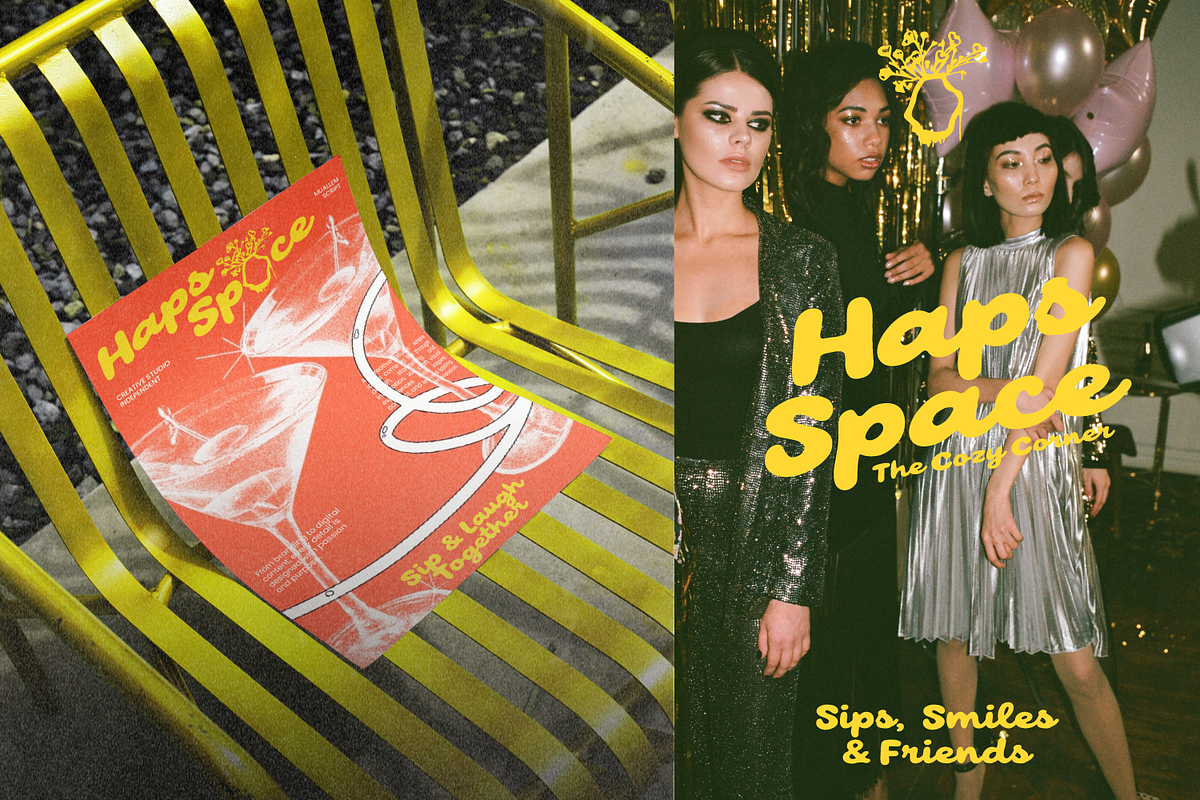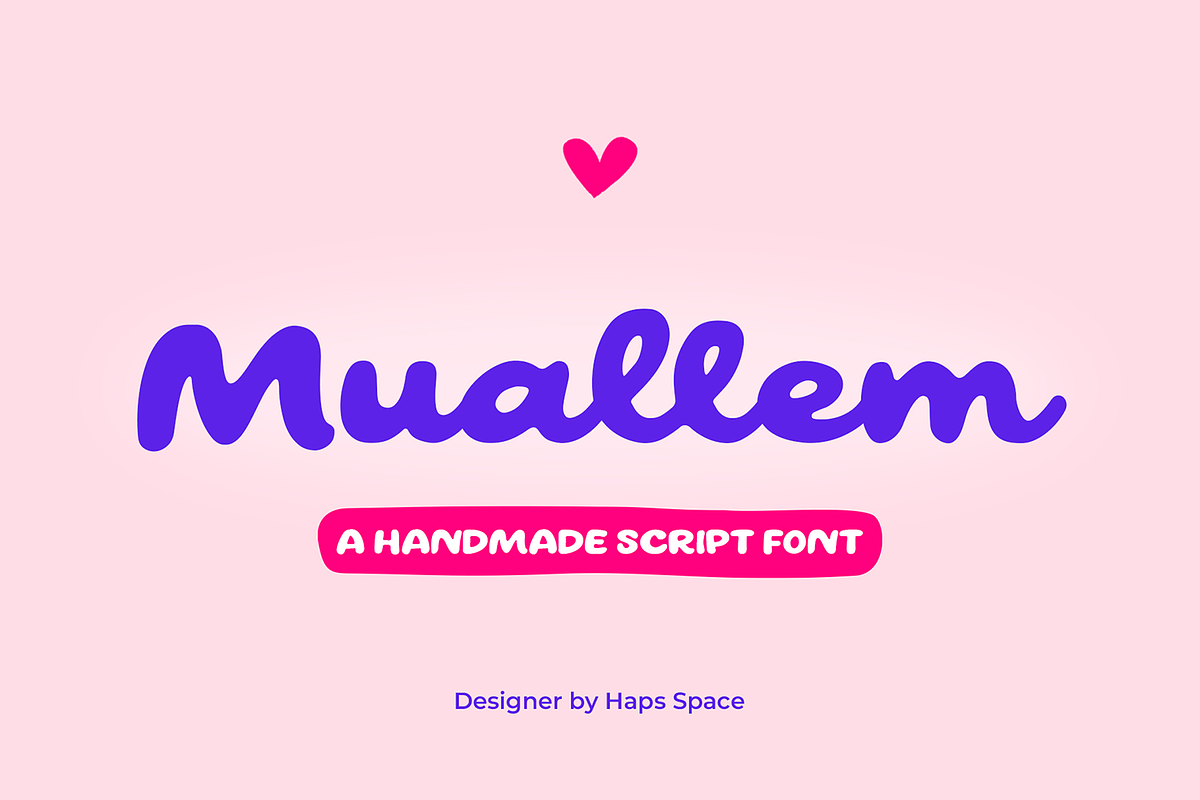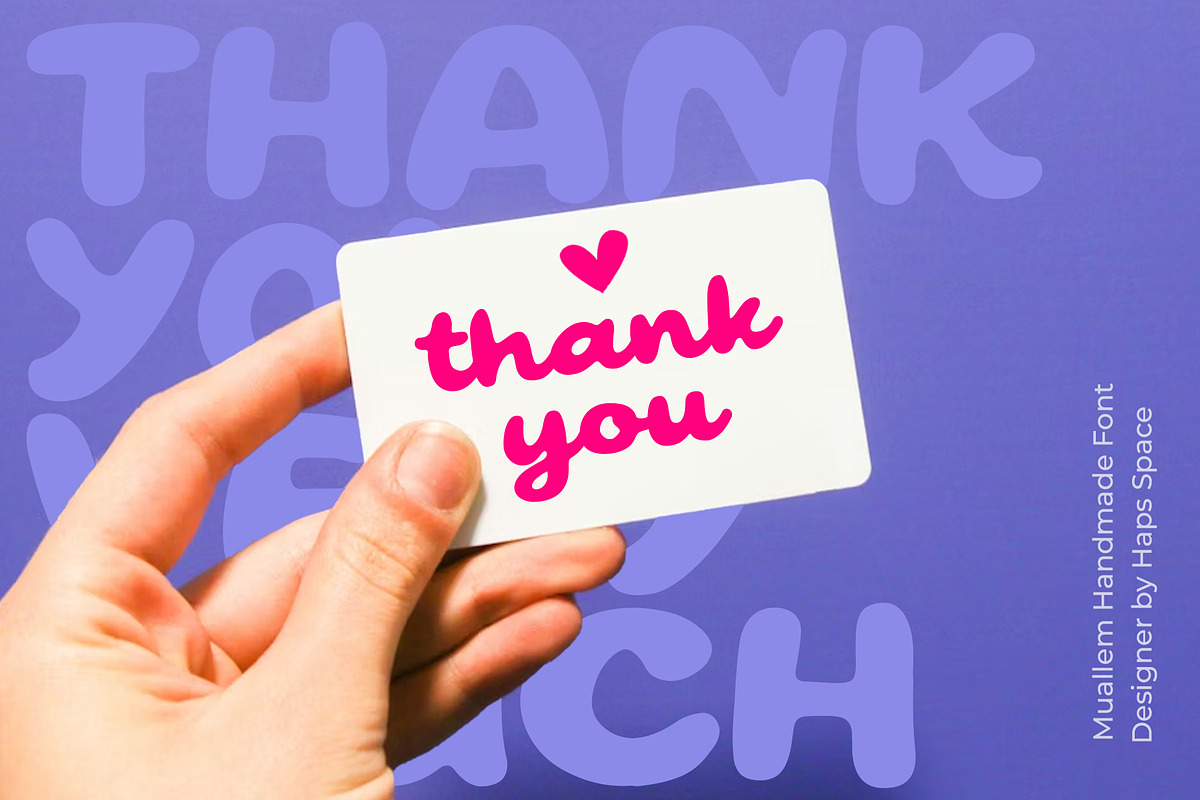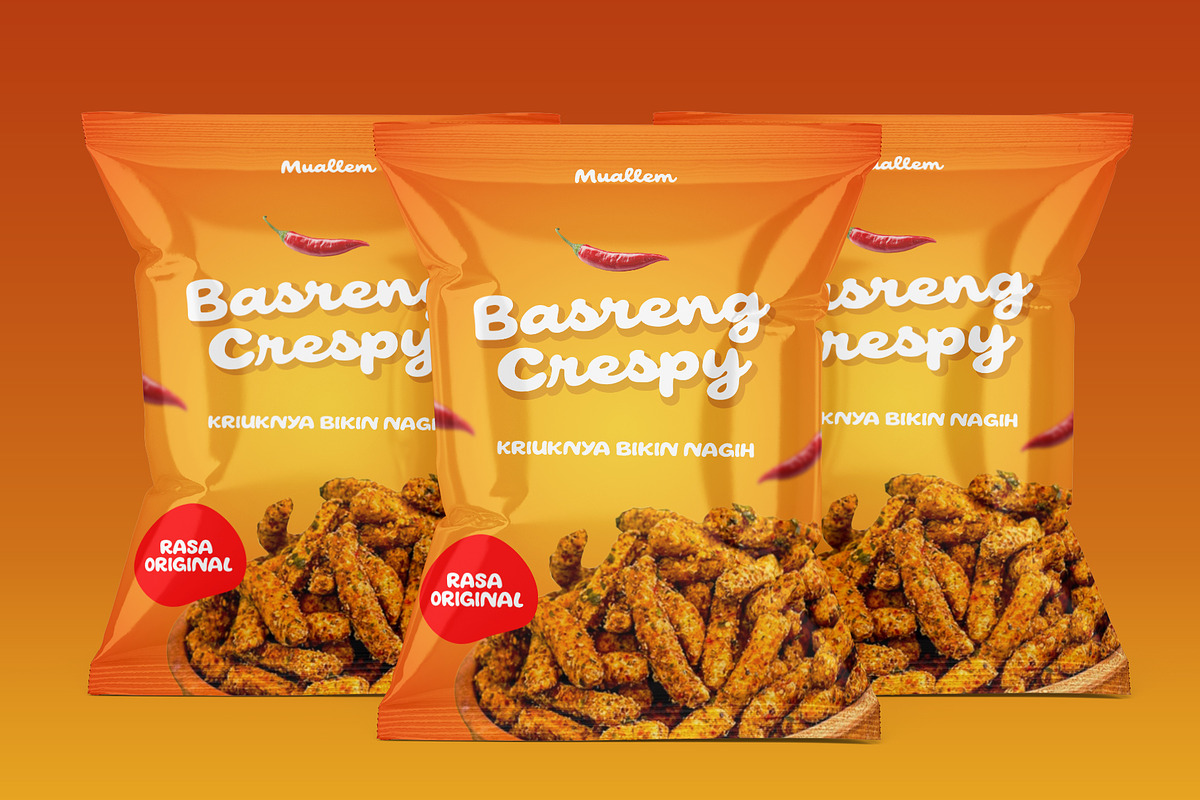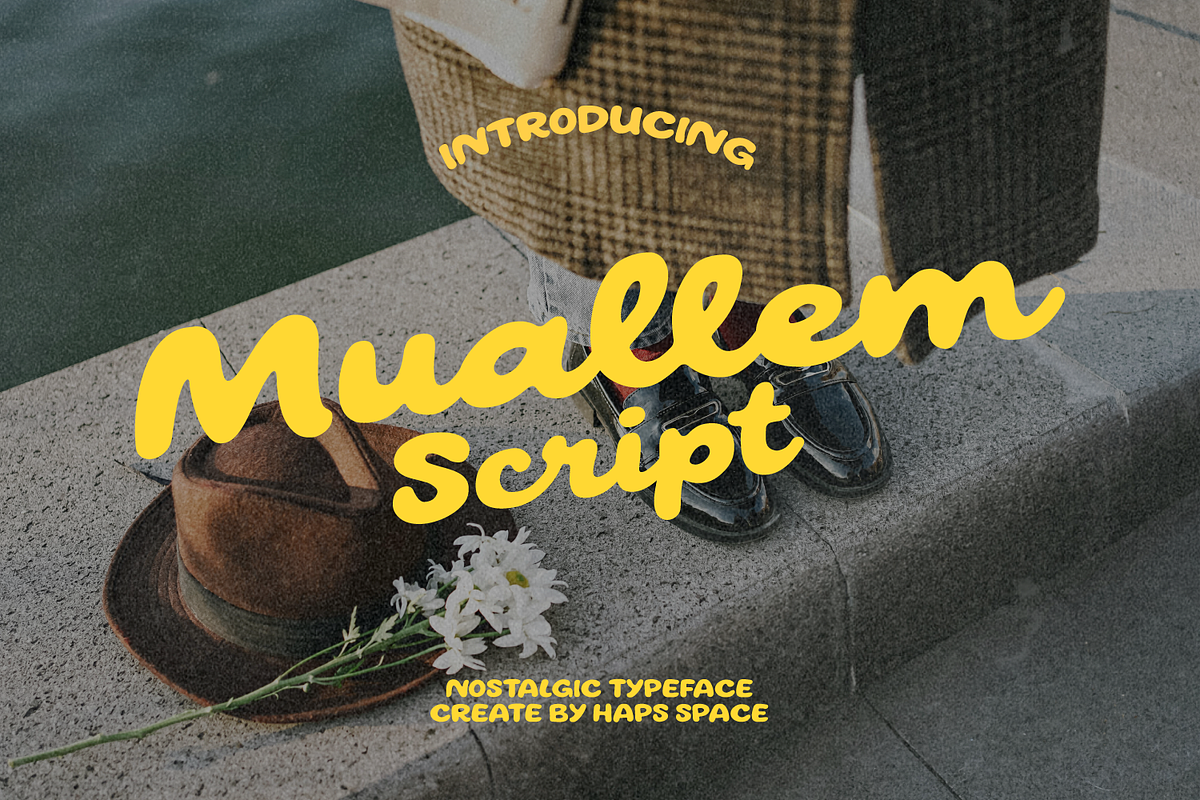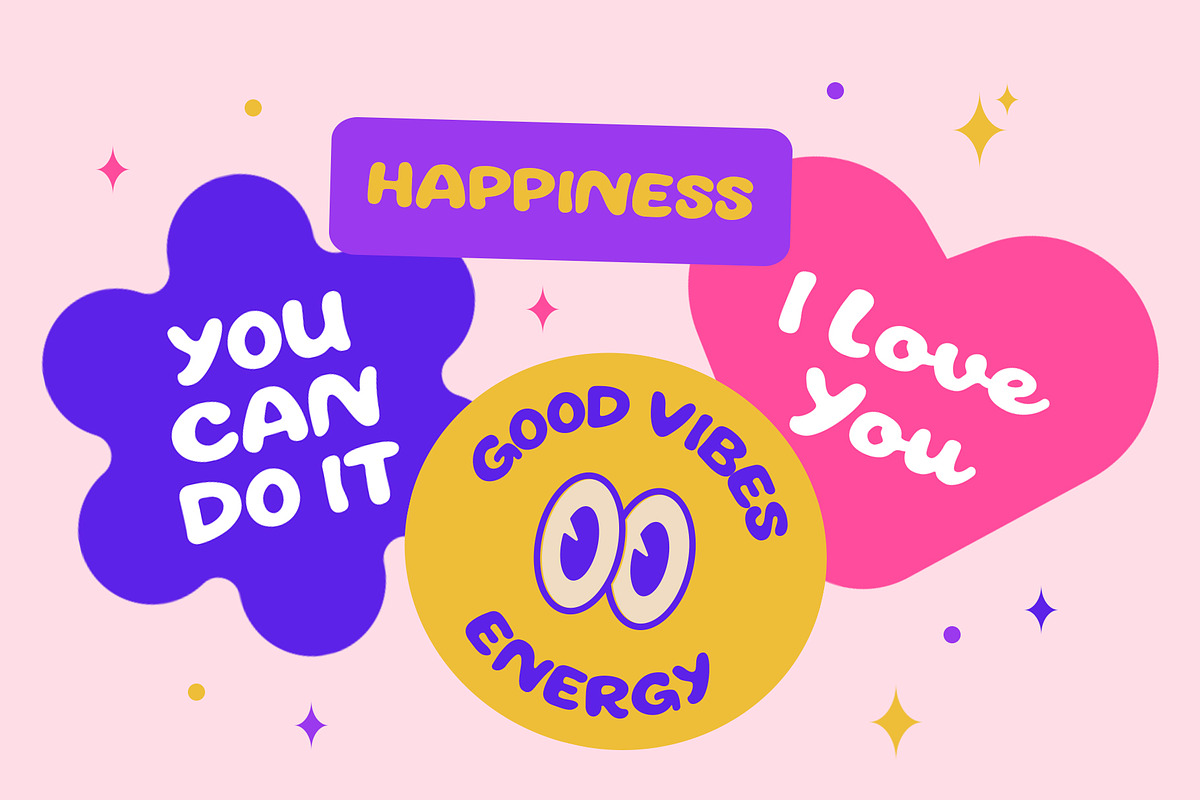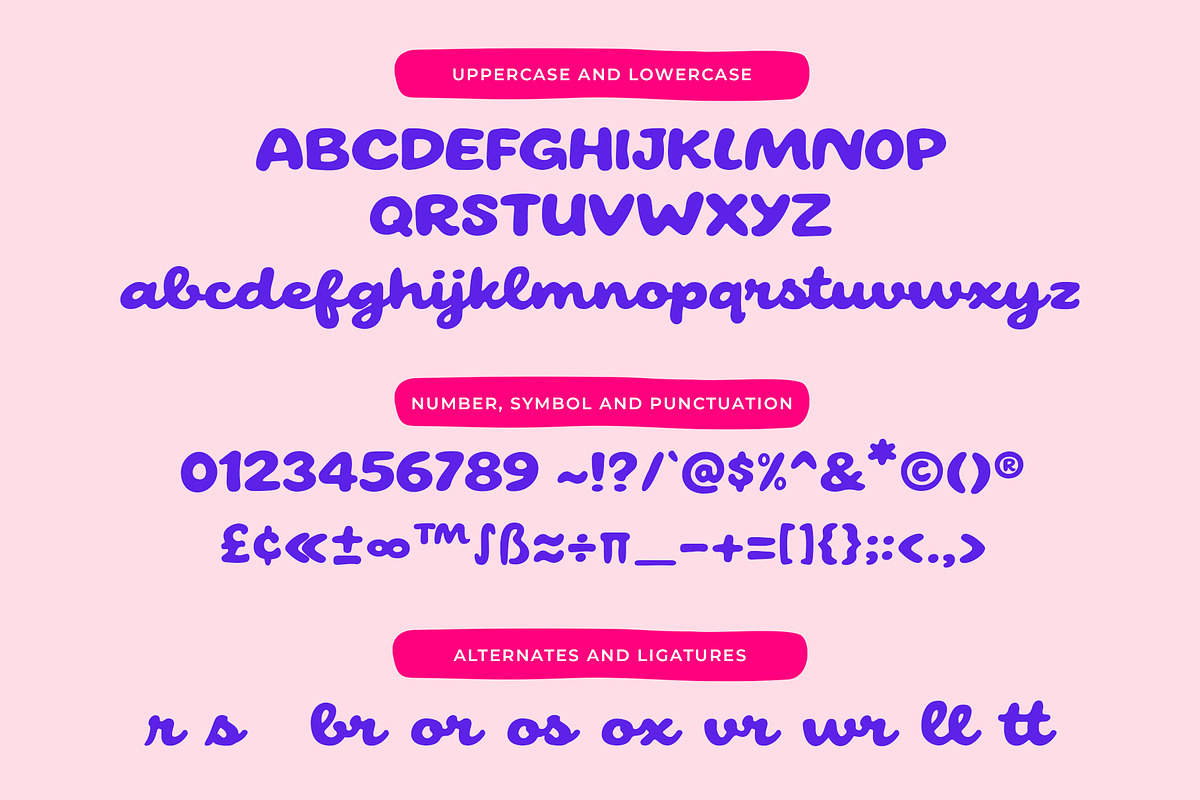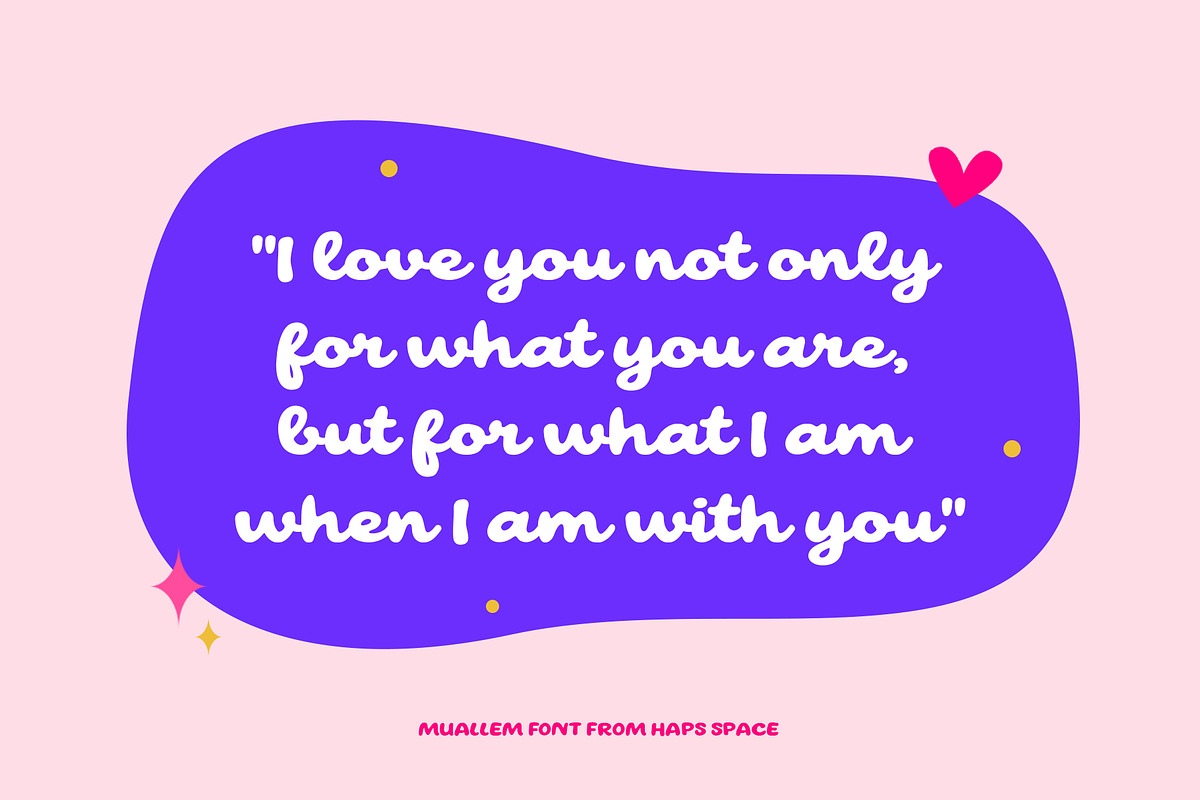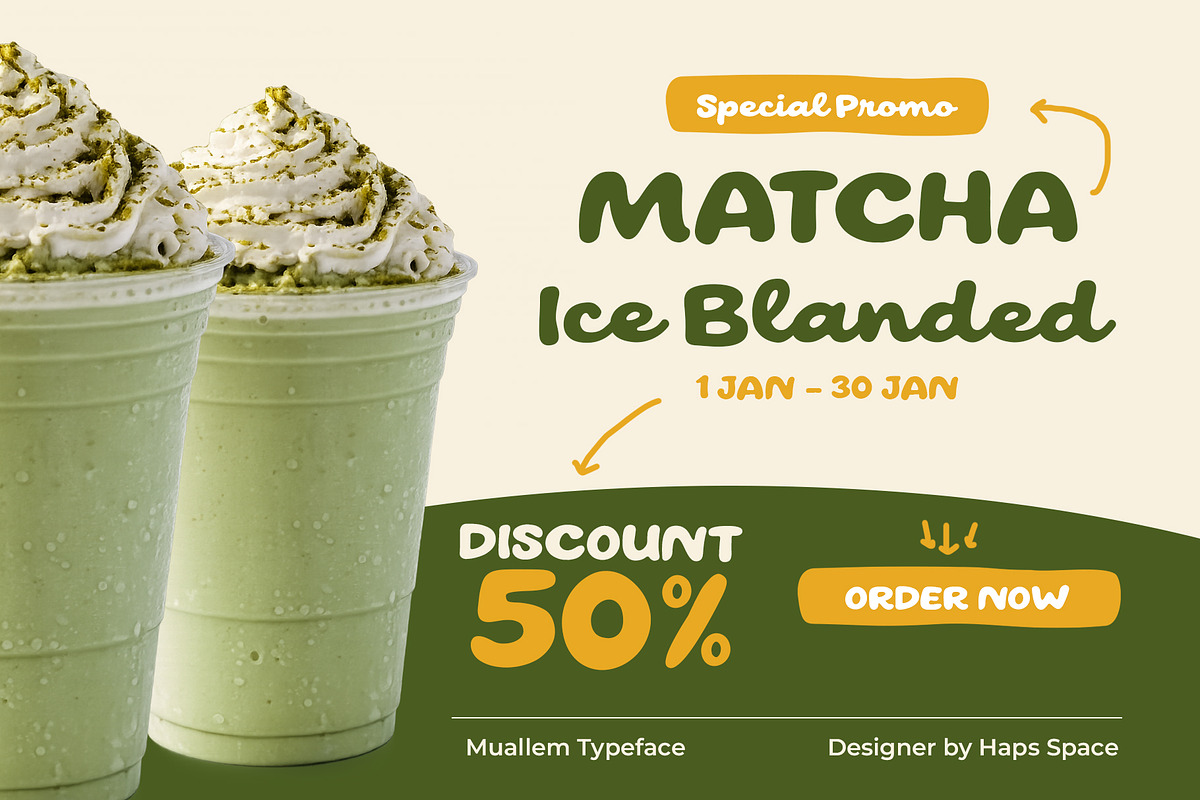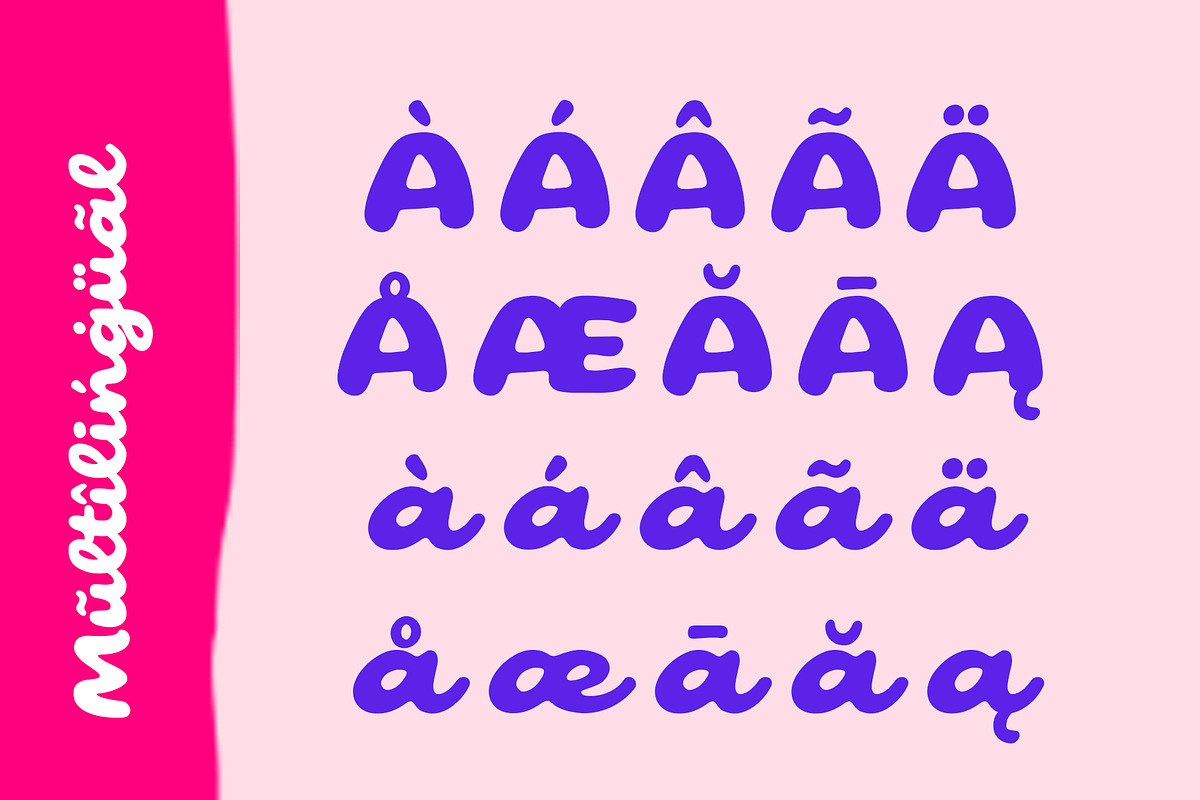
Muallem Script Bold Nostalgic
Muallem Script is a heavy-weight script font that beautifully captures the essence of nostalgic 1970s typography. Designed with smooth, flowing curves and a friendly personality, this font brings a warm, vintage touch to modern creative projects. Its bold silhouette ensures maximum visibility, making it a perfect choice for designs that need to speak with confidence and soul.
Whether you are designing a retro-inspired logo, a cozy coffee shop menu, or vibrant social media content, Muallem Script provides an authentic "hand-crafted" feel. Its rounded terminals and rhythmic flow evoke a sense of comfort and timeless style, ideal for brands that want to establish a personal connection with their audience.
Ideal For:
- Retro Branding: Creating standout logos for vintage boutiques, cafes, or lifestyle brands.
- Packaging Design: Adding a warm, organic touch to product labels and packaging.
- Social Media Graphics: Perfect for eye-catching quotes and high-energy posts.
- Merchandise: Designing bold stickers, and posters with a nostalgic vibe.
* Full multilingual character set
* OpenType features such as ligatures and alternates